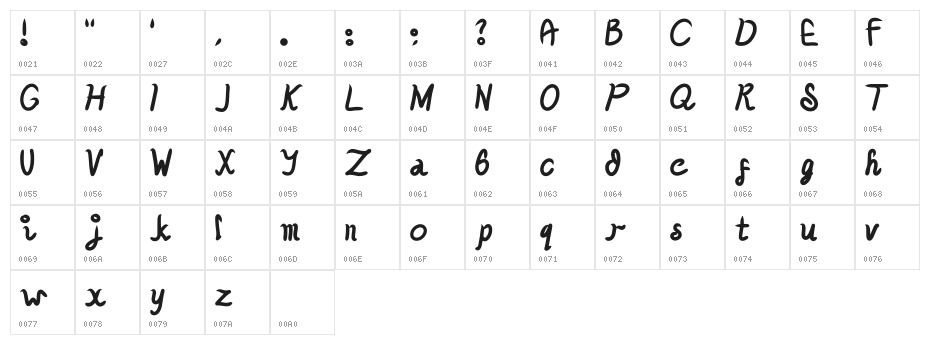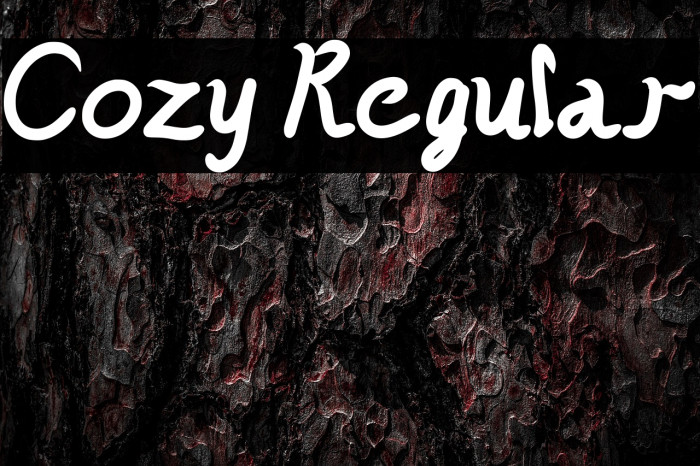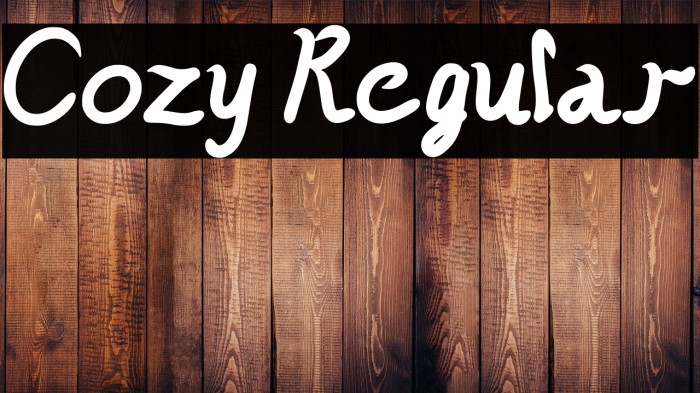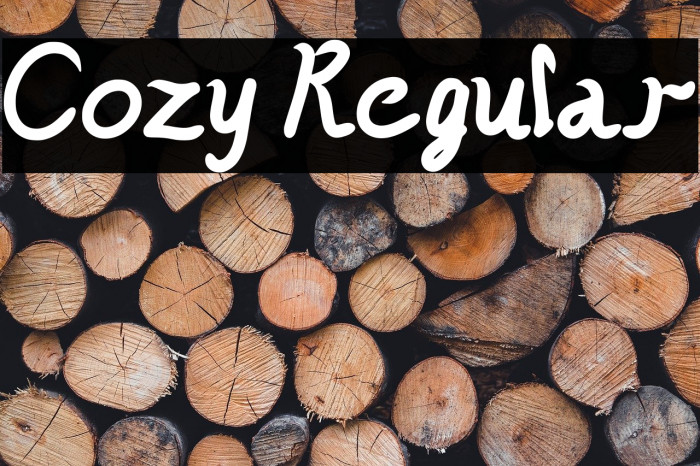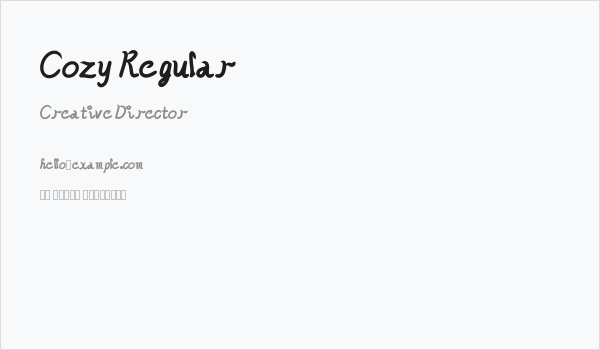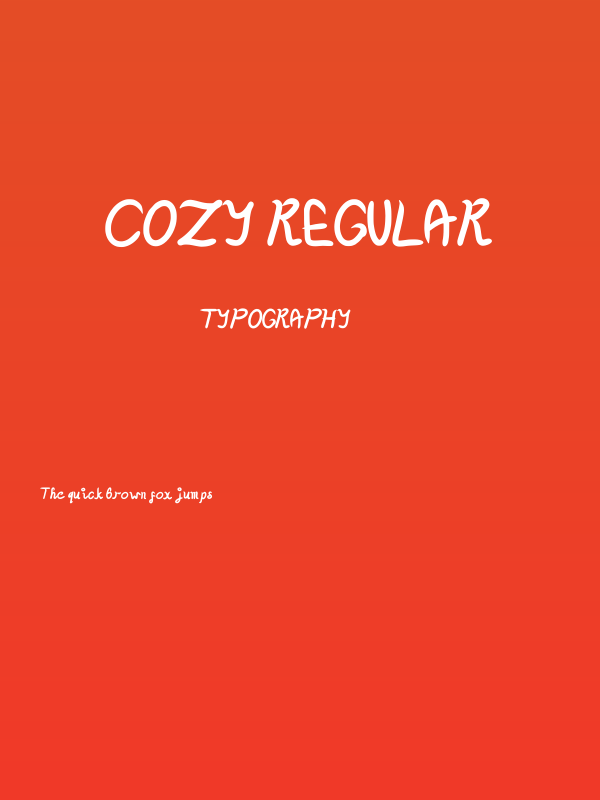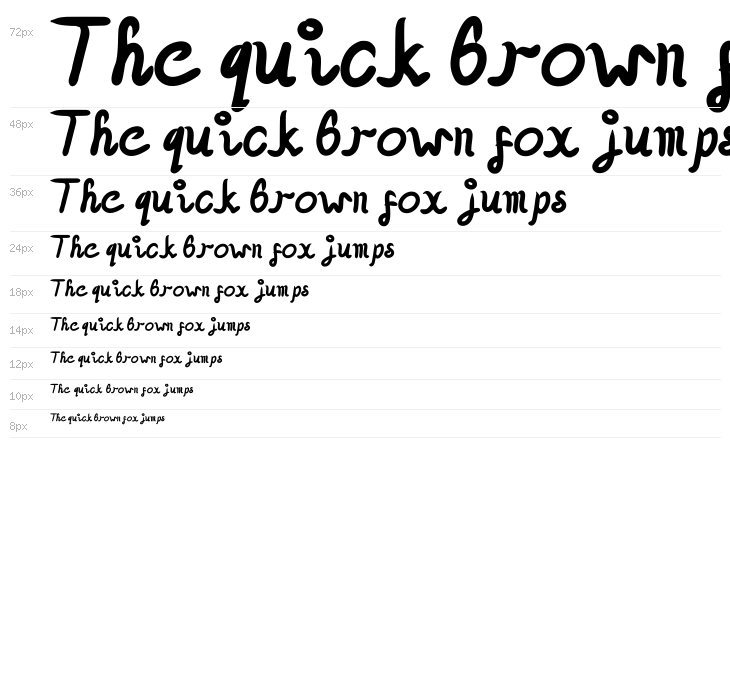
Cozy Regular Font
Cozy Regular Description
This font features a playful and casual script style with smooth, flowing curves and a handwritten appearance. The letters are slightly slanted, giving a dynamic and lively feel. The uppercase characters are bold and rounded, while the lowercase letters maintain a consistent flow with occasional loops and swirls, adding to the font's charm. The numbers and special characters follow the same playful style, making it suitable for informal and creative projects. The overall design is approachable and friendly, perfect for adding a personal touch to any text.
Overall StyleCasual
Use CaseHeadlines, Logos, Invitations
Proposed ProjectsIdeal for greeting cards, invitations, personal branding, and playful logos.